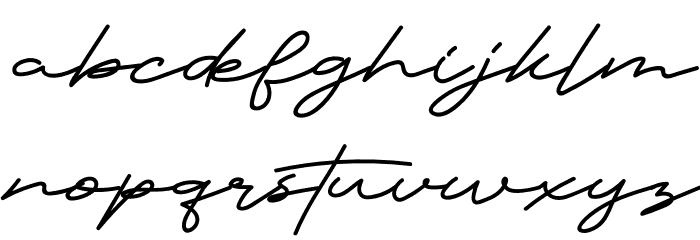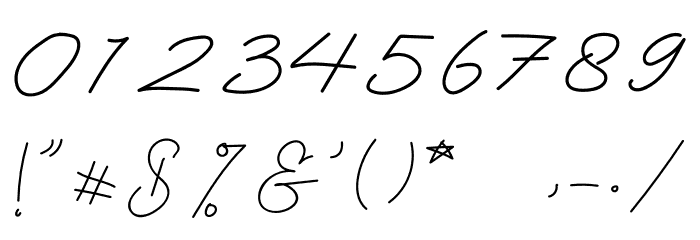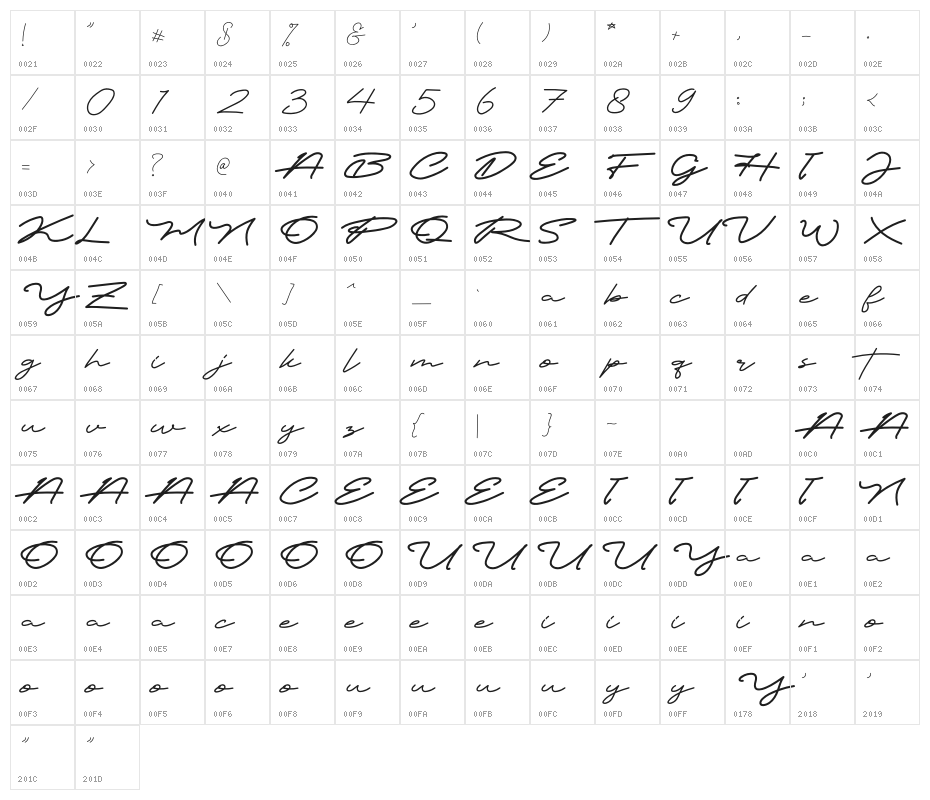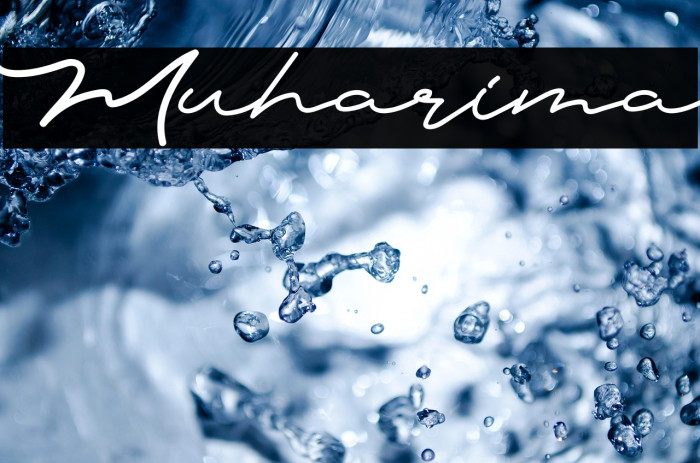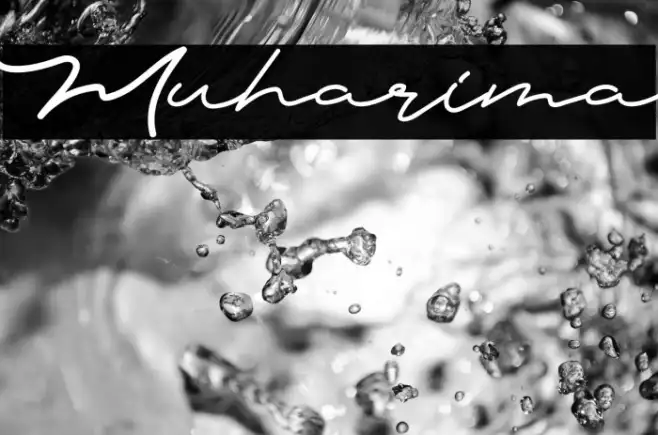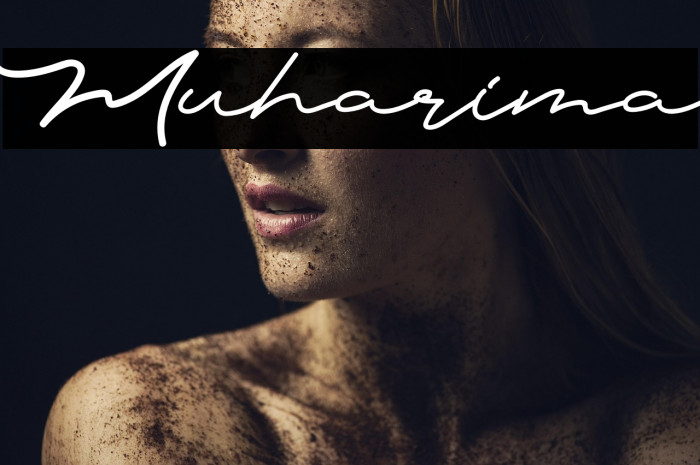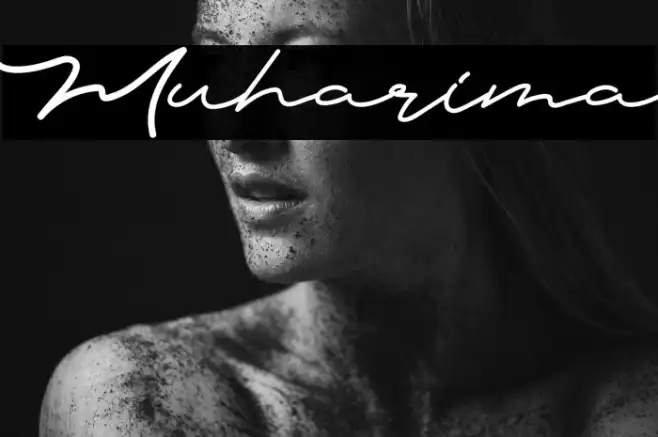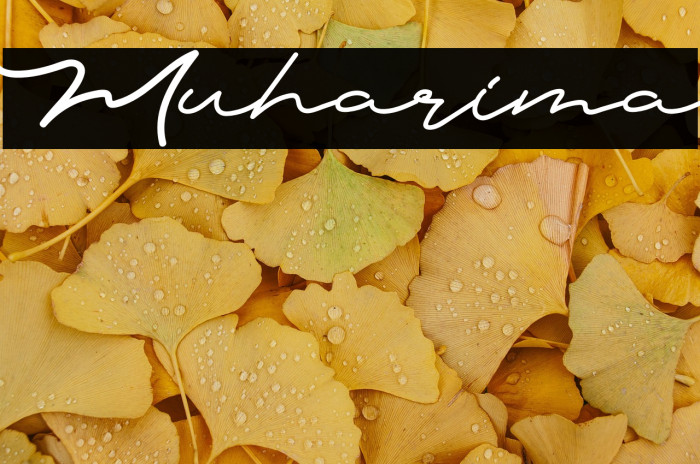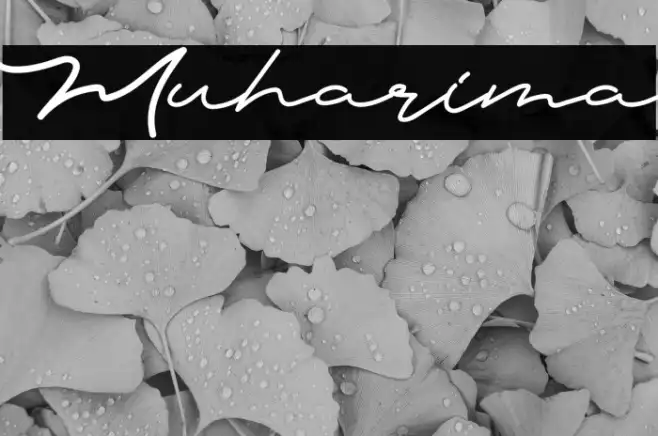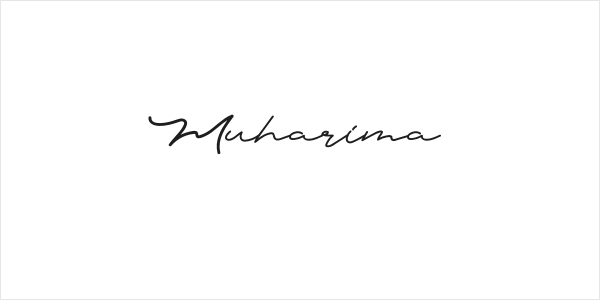
Muharima Font
This font features a fluid, cursive style that mimics elegant handwriting. The letters are connected, creating a seamless flow that is both sophisticated and approachable. The uppercase letters are slightly more elaborate, with extended loops and flourishes, while the lowercase letters maintain a consistent, smooth line. Numbers and special characters are designed to match the overall aesthetic, ensuring a cohesive look across all text. The strokes are thin and delicate, adding to the font's graceful appearance. This style is perfect for projects that require a personal touch, such as invitations, greeting cards, or branding materials.
A fluid, cursive font with elegant, connected letters and delicate strokes.
- Proposed Projects: Ideal for wedding invitations, personal branding, greeting cards, and elegant stationery.
- Character Spacing: Tight
- Overall Style: Elegant
- Use Case: Logos, Invitations, Personal Branding